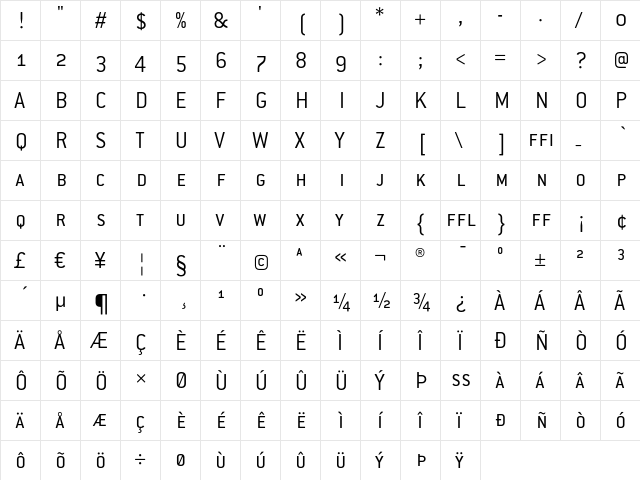
ConduitSCITC Light
Design Context for ConduitSCITC Typeface
ConduitSCITC is a composed and adaptable typeface that performs quietly and consistently across a wide range of design contexts. Its slender proportions lend an understated elegance to any composition. The condensed width makes it efficient for tight spaces without sacrificing legibility.